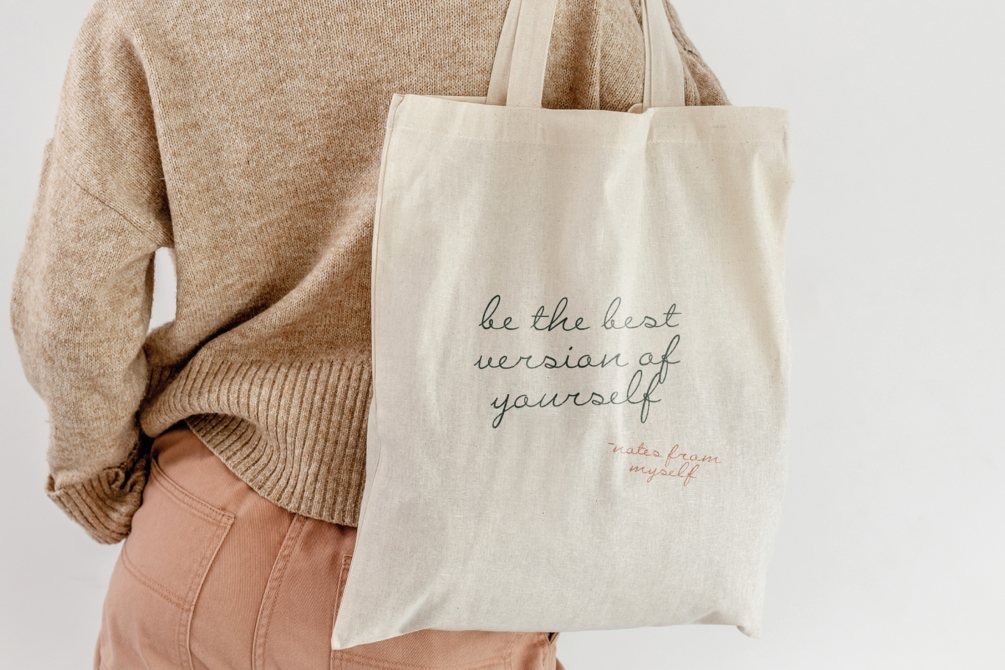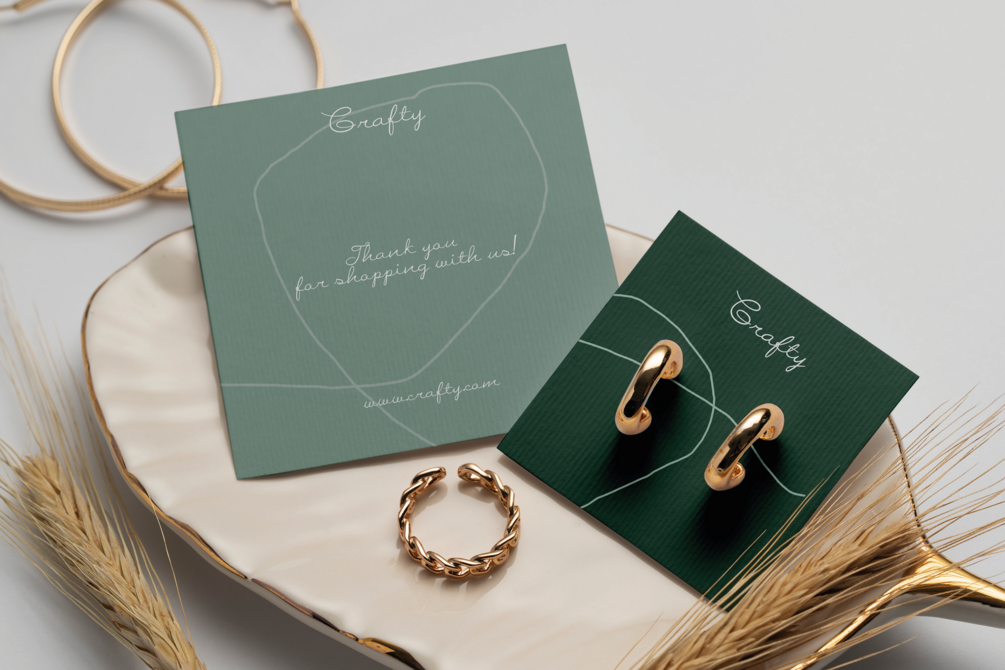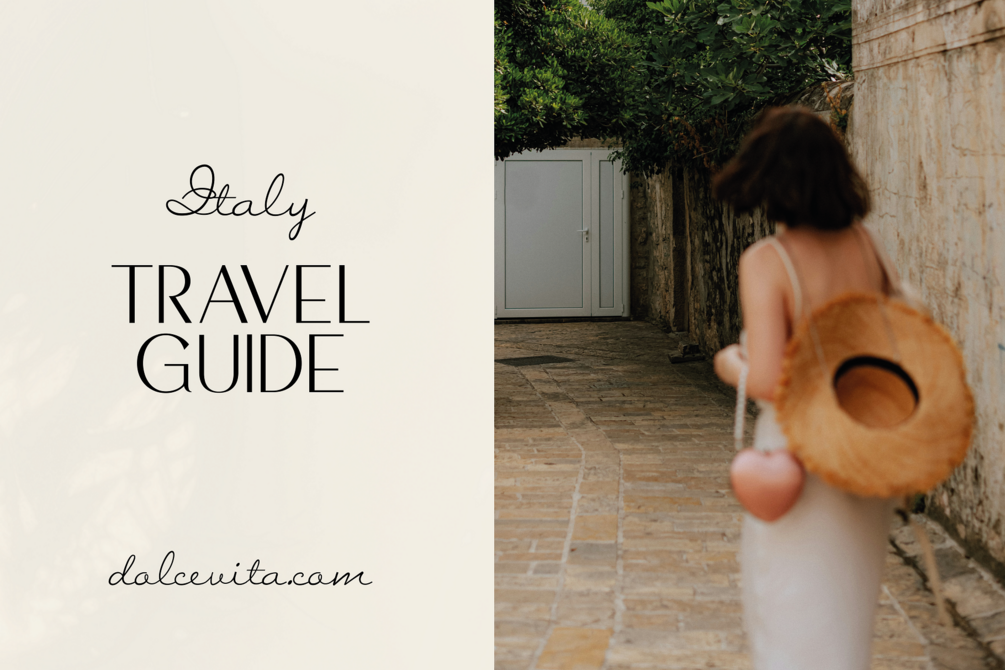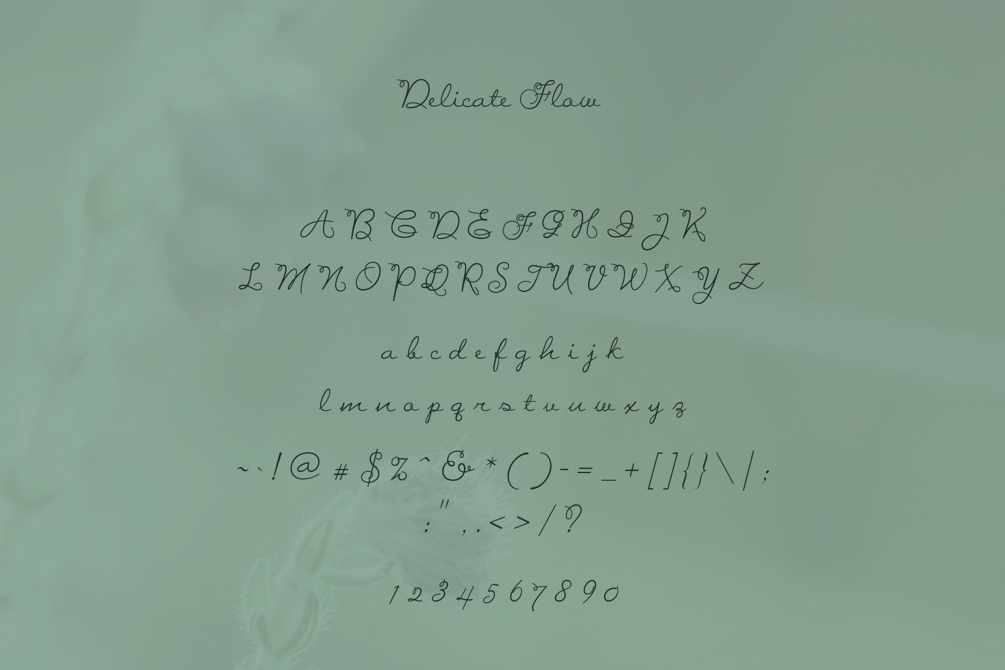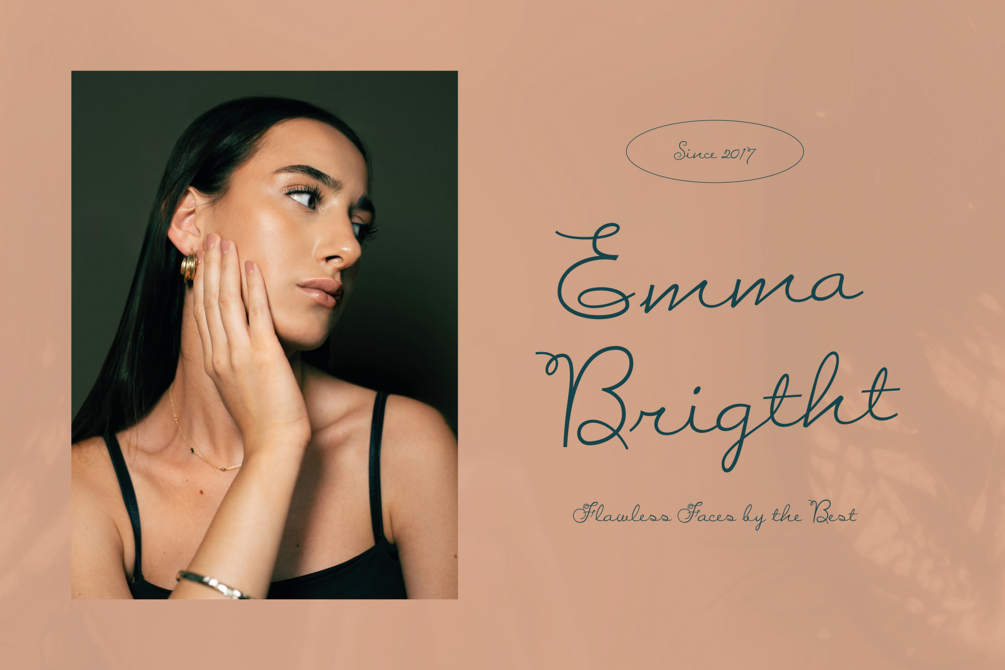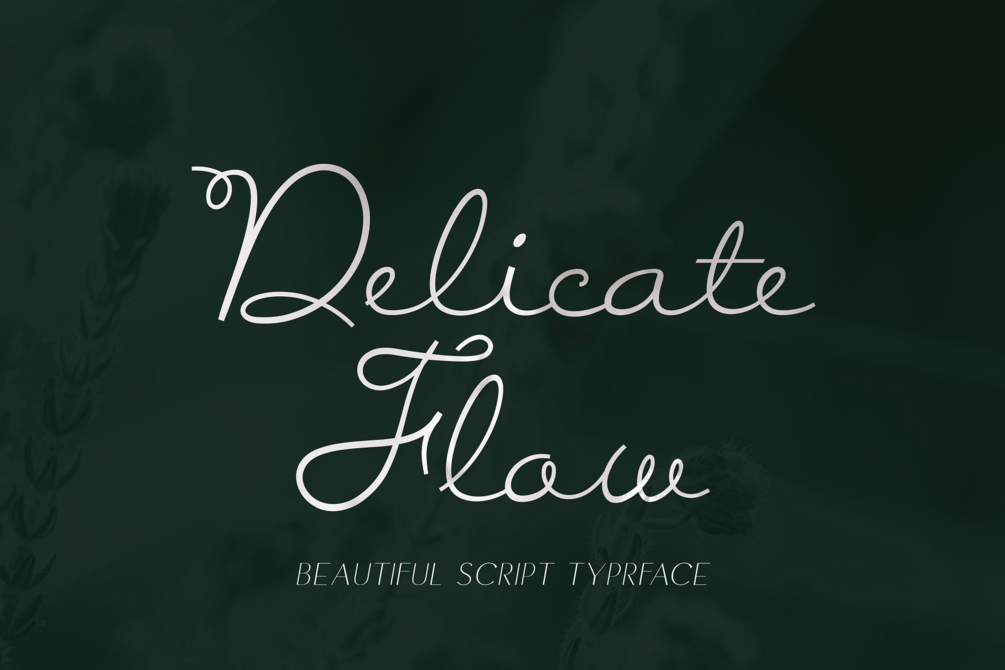
Delicate Flow – Signature Script Typeface
Introducing Delicate Flow, a jawdroppingly gorgeous signature script typeface that can be used for a vast variety of projects. With its fluid strokes and graceful curves, Delicate Flow exudes an air of effortless beauty and sophistication, making it the perfect choice for any design that demands a touch of elegance.
Delicate Flow is meticulously crafted to emulate the natural, flowing motion of a signature, creating a personal and intimate feel in every letter. This typeface is perfect for branding, logos, wedding invitations, product packaging, social media graphics, and much more. Its versatility ensures that it can seamlessly adapt to both formal and informal settings, making it a valuable asset in any designer’s toolkit.
Each character in Delicate Flow is designed with attention to detail, ensuring a harmonious and cohesive look across your entire project. The typeface includes a variety of alternates and ligatures, allowing you to customize your text and add unique flourishes that enhance the overall aesthetic.
Whether you’re crafting a luxurious brand identity, designing elegant wedding stationery, or creating captivating social media posts, Delicate Flow adds a touch of refined elegance that elevates your work to new heights. Its timeless charm and sophisticated appeal make it the ideal choice for designers who seek to make a lasting impression.
Let Delicate Flow be the cornerstone of your creative projects, infusing them with the beauty and grace of a perfectly penned signature. With its unparalleled elegance and versatility, Delicate Flow is the go-to typeface for those who appreciate the art of fine typography.